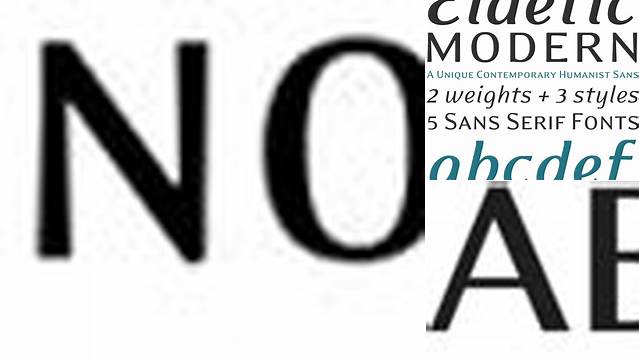
Eidetic Modern Bold Font: Your Free Download Guide
Hey there, design enthusiasts! Are you on the hunt for that perfect typeface to make your projects pop? Well, guys, you've landed in the right spot! Today, we're diving deep into the world of the Eidetic Modern Bold Font, exploring why it's a fantastic choice, where you can snag it for free, and how to use it to seriously level up your design game. This isn't just about finding a font; it's about discovering a tool that can transform your creative vision. So, buckle up, because we're about to unleash some serious typographic power!
What Exactly is Eidetic Modern Bold Font?
Eidetic Modern Bold Font isn't just another typeface; it's a statement. Imagine a font that combines the crisp, clean lines of modern design with an undeniable, eye-catching boldness. That's Eidetic Modern Bold. This font family is often characterized by its robust letterforms, strong presence, and contemporary aesthetic, making it incredibly versatile for a multitude of design applications. When you're talking about modern typography, Eidetic Modern Bold often comes up in conversations about strong, impactful, and clear communication. Its legibility, even at smaller sizes, is quite impressive for a bold font, which isn't always a given, right? It manages to strike a balance between being visually commanding and easy on the eyes. We're talking about a font that commands attention without screaming, a font that exudes confidence and professionalism, but still has that friendly, approachable vibe. The design principles behind Eidetic Modern Bold typically focus on geometric precision, balanced proportions, and a minimalist touch that prevents it from feeling over-designed or cluttered. It’s the kind of font that says, "I mean business, but I'm also stylish and forward-thinking." Think about how a well-designed logo can instantly convey a brand's personality; Eidetic Modern Bold has that same innate ability to imbue your text with character and purpose. It’s like the reliable friend in your font library who always delivers, whether you need a powerful headline or a strong call to action. Plus, its modern characteristics mean it pairs wonderfully with lighter, more elegant fonts, creating a beautiful contrast that can make your designs truly sing. We'll get into font pairing later, but trust me, this one's a keeper for establishing hierarchy and visual interest. In essence, guys, Eidetic Modern Bold is designed to be memorable, impactful, and highly adaptable, making it a go-to for anyone who wants their message to be seen and felt.
Why Choose Eidetic Modern Bold for Your Designs?
Choosing Eidetic Modern Bold Font for your projects offers a myriad of benefits, making it a favorite among designers who want their work to stand out. First and foremost, its sheer impact is undeniable. In a world saturated with visual information, an Eidetic Modern Bold typeface cuts through the noise. Imagine a headline that instantly grabs attention or a brand name that becomes etched in memory – that's the power we're talking about. This font’s robust weight and clear structure ensure that your message is not just seen, but read and understood. It's perfect for scenarios where you need high visibility, such as in advertising, large format displays, or prominent website headers. Secondly, its modern aesthetic means your designs will always feel current and fresh. This isn't a font that will age quickly; its clean lines and contemporary feel ensure longevity in design trends. It resonates with audiences who appreciate a sleek, professional, and uncluttered look. Thirdly, Eidetic Modern Bold Font is incredibly versatile. Whether you're working on print media like brochures and posters, digital interfaces such as websites and apps, or even branding elements like logos and packaging, this font adapts beautifully. It maintains its strong character across various mediums and scales, which is a huge plus for maintaining brand consistency. Moreover, it boasts excellent readability, especially for a bold font. Unlike some overly stylized bold fonts that can be difficult to decipher, Eidetic Modern Bold is designed with clarity in mind, ensuring your audience can effortlessly consume your content. This makes it ideal not only for headlines but also for short, impactful body text or call-to-action buttons where clarity is paramount. Finally, using Eidetic Modern Bold can elevate the perceived professionalism of your work. A strong, well-chosen font communicates attention to detail and a commitment to quality, instantly boosting your design's credibility. It conveys confidence and authority, making your brand or message feel more trustworthy and authoritative. So, if you're looking for a font that combines style, strength, versatility, and readability, Eidetic Modern Bold Font is definitely one to consider adding to your creative toolkit. It's truly a game-changer for many design challenges.